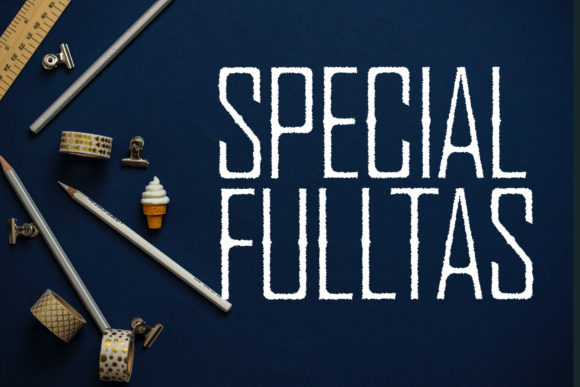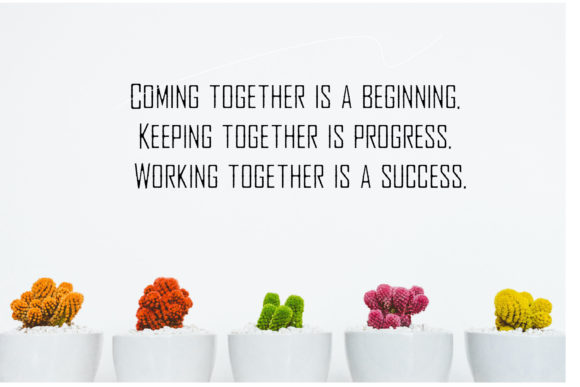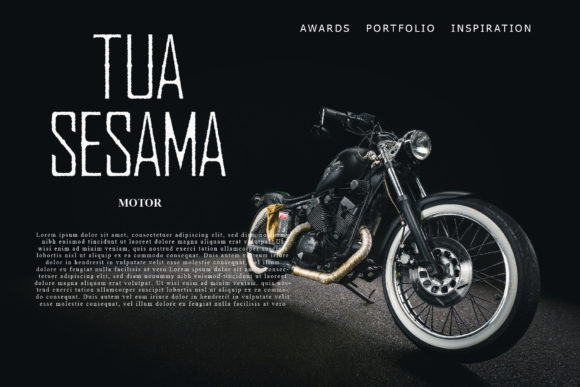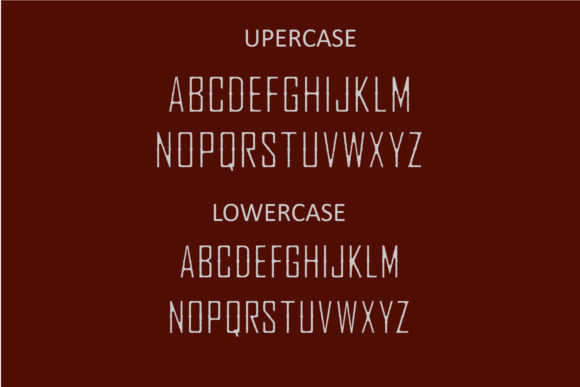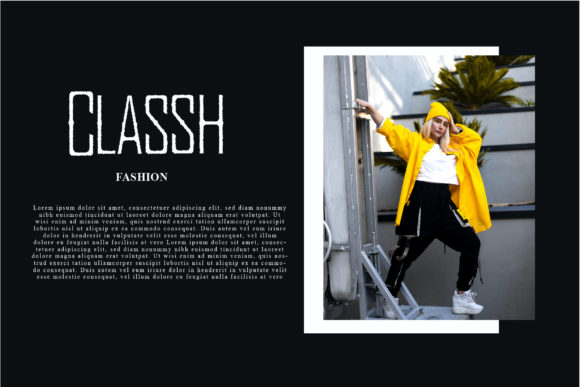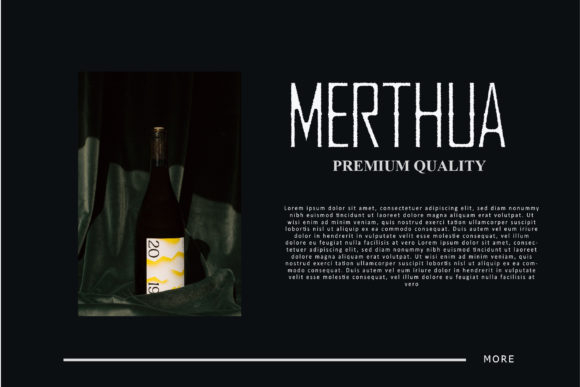
Gorg Font: Adding a Unique Touch to Your Designs
In the world of typography, fonts play a crucial role in making or breaking a design. With thousands of fonts available, it can be overwhelming to choose the right one that sets your design apart from the rest. If you’re looking for a cool and uniquely lettered display font, look no further than Gorg Font. In this article, we’ll dive into the features and benefits of Gorg Font, and explore how it can elevate your designs to the next level.
What is Gorg Font?
Gorg Font is a modern display font that boasts a distinctive and eye-catching style. Its unique lettering makes it perfect for adding a touch of personality to your designs. Whether you’re working on a web design project, creating business cards, or crafting promotional materials, Gorg Font is an excellent choice. Its versatility and flair make it an ideal font for designers and crafters looking to make a statement.
Key Features of Gorg Font
- Unique Lettering: Gorg Font features a one-of-a-kind lettering style that sets it apart from other fonts. Its distinctive curves and lines make it perfect for creating eye-catching designs.
- Display Font: Gorg Font is specifically designed as a display font, making it ideal for headlines, titles, and other prominent text elements.
- Cool and Modern: Gorg Font has a cool and modern aesthetic that will add a touch of sophistication to your designs.
- Versatile: Gorg Font can be used for a wide range of design projects, from web designs to print materials.
Benefits of Using Gorg Font
So, why choose Gorg Font for your design projects? Here are just a few benefits of using this unique font:
- Adds Personality: Gorg Font adds a touch of personality to your designs, making them more engaging and memorable.
- Standout Text: Gorg Font’s unique lettering ensures that your text will stand out from the crowd, grabbing the attention of your audience.
- Easy to Read: Despite its unique style, Gorg Font is easy to read, making it perfect for use in a variety of design applications.
- Time-Saving: With Gorg Font, you can create professional-looking designs in no time, saving you time and effort.
How to Use Gorg Font in Your Designs
Using Gorg Font in your designs is easy. Here are a few tips to get you started:
- Pair with Other Fonts: Gorg Font pairs well with other fonts, making it easy to create a cohesive look. Try pairing it with a clean sans-serif font for a contrasting look.
- Use for Headlines: Gorg Font is perfect for use in headlines and titles, where its unique style can really shine.
- Experiment with Colors: Gorg Font looks great in a variety of colors, so don’t be afraid to experiment and find the perfect hue for your design.
Who Can Benefit from Gorg Font?
Gorg Font is perfect for a wide range of designers and crafters, including:
- Graphic Designers: Graphic designers can use Gorg Font to add a unique touch to their designs, from brochures to business cards.
- Web Designers: Web designers can use Gorg Font to create eye-catching headlines and titles that will make their websites stand out.
- Crafters: Crafters can use Gorg Font to add a personal touch to their craft projects, from handmade cards to DIY signs.
| Font Name | Gorg Font |
| Author | typehome.std |
In conclusion, Gorg Font is a cool and uniquely lettered display font that’s perfect for adding a touch of personality to your designs. Its versatility, modern aesthetic, and ease of use make it an excellent choice for designers and crafters looking to make a statement. Whether you’re working on a web design project, creating business cards, or crafting promotional materials, Gorg Font is sure to elevate your designs to the next level.